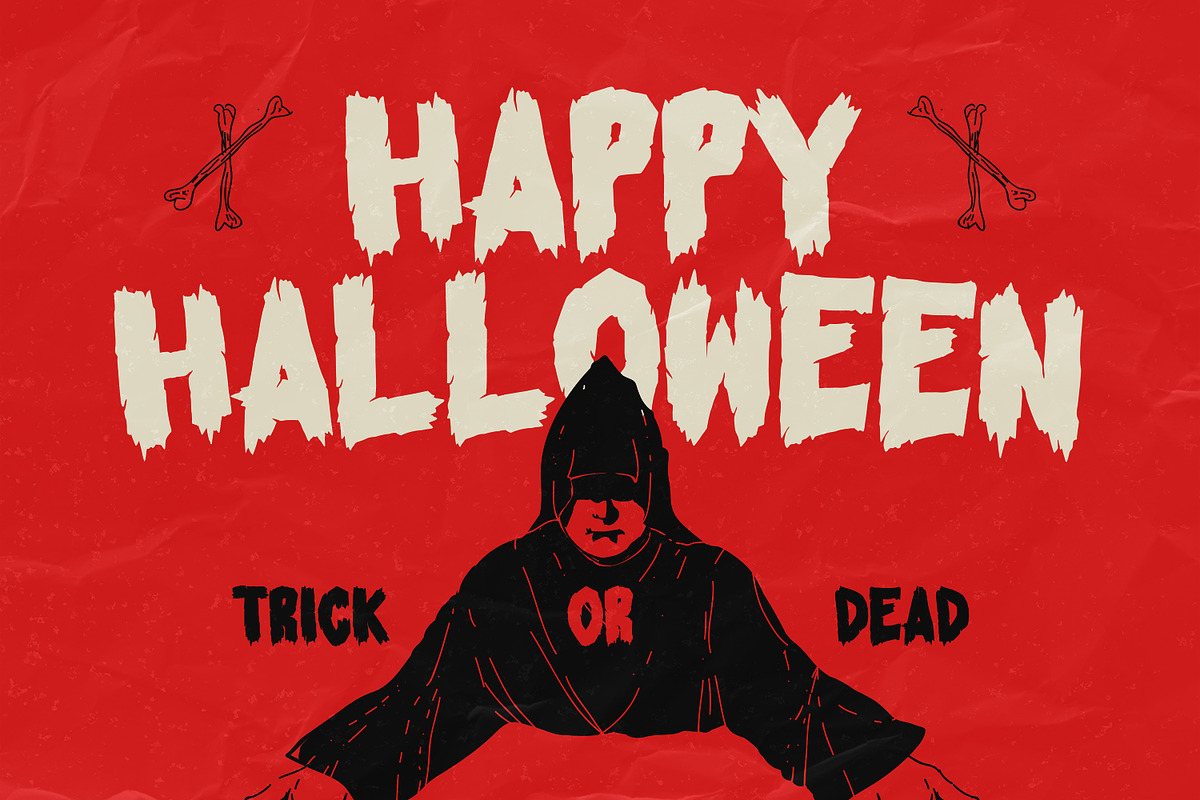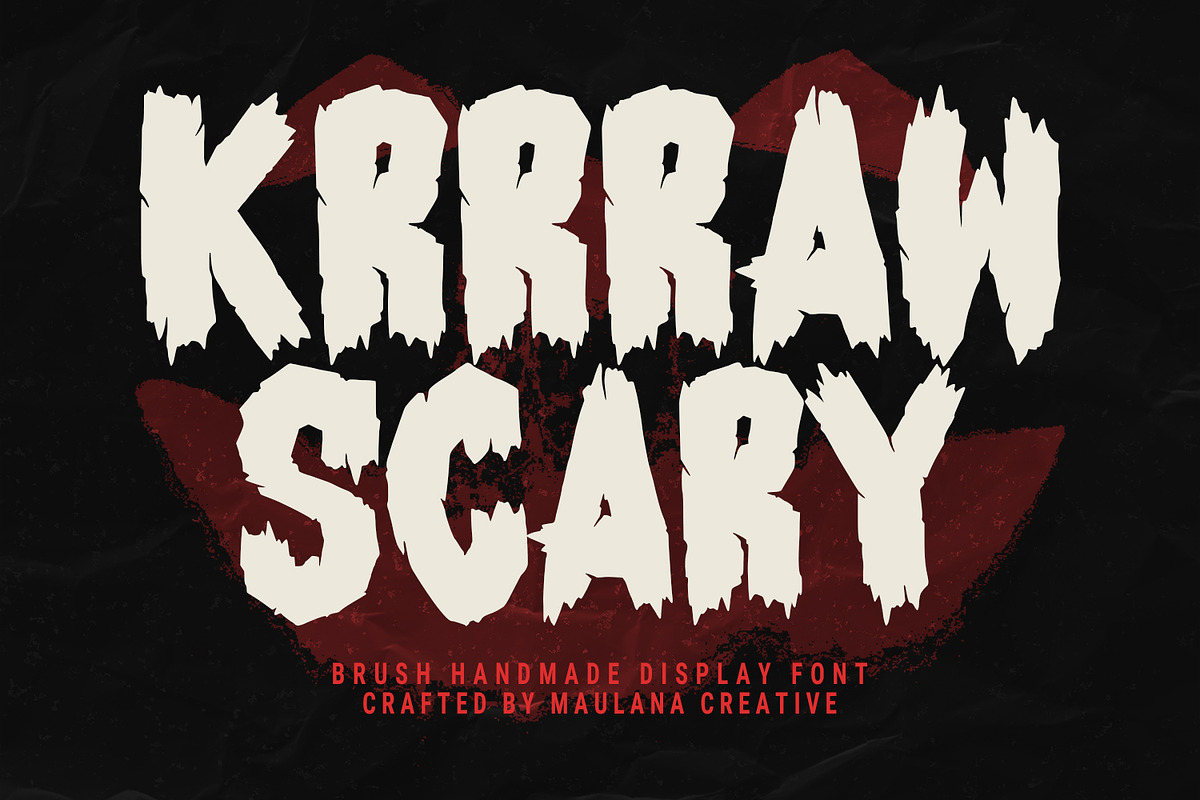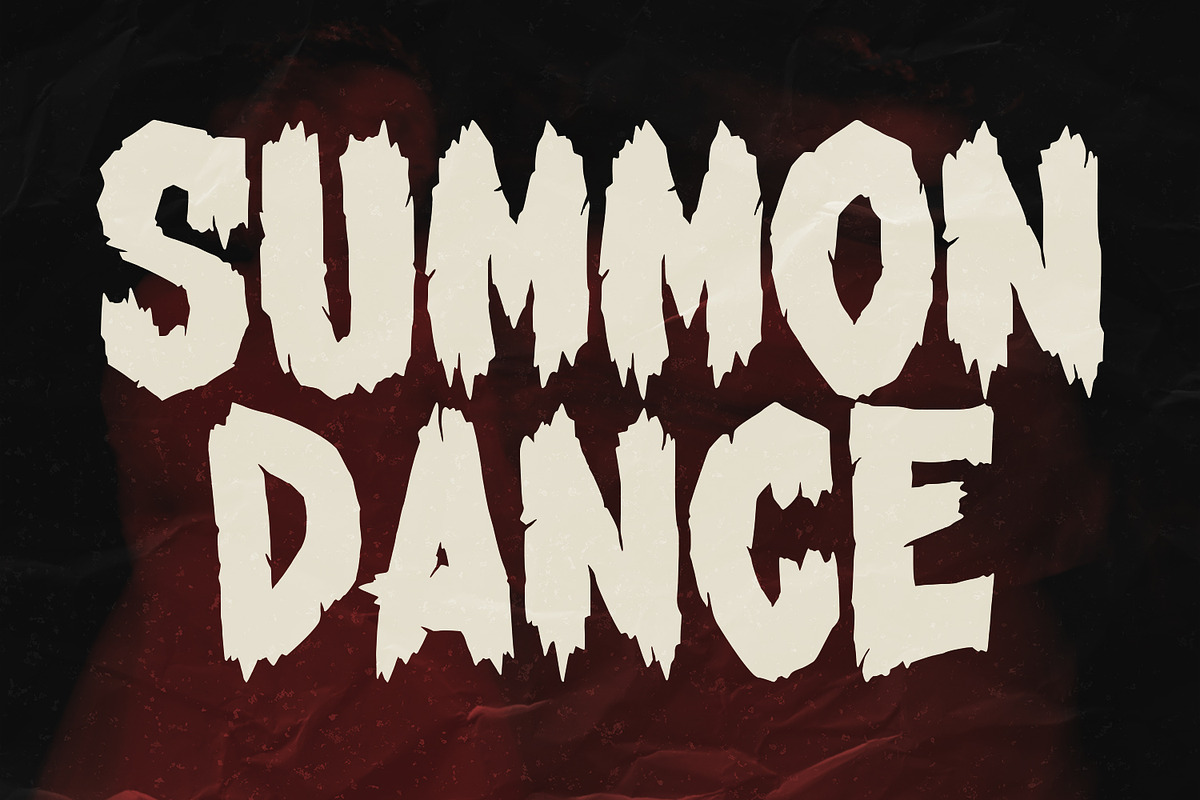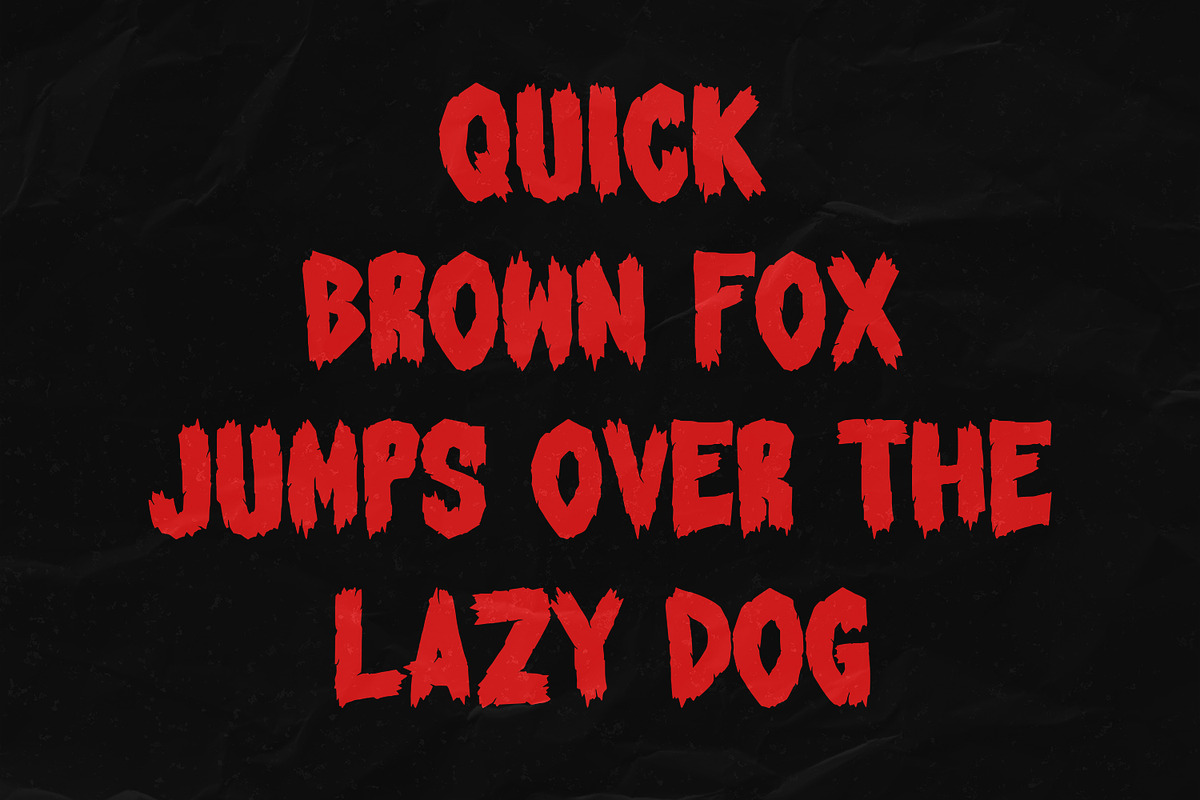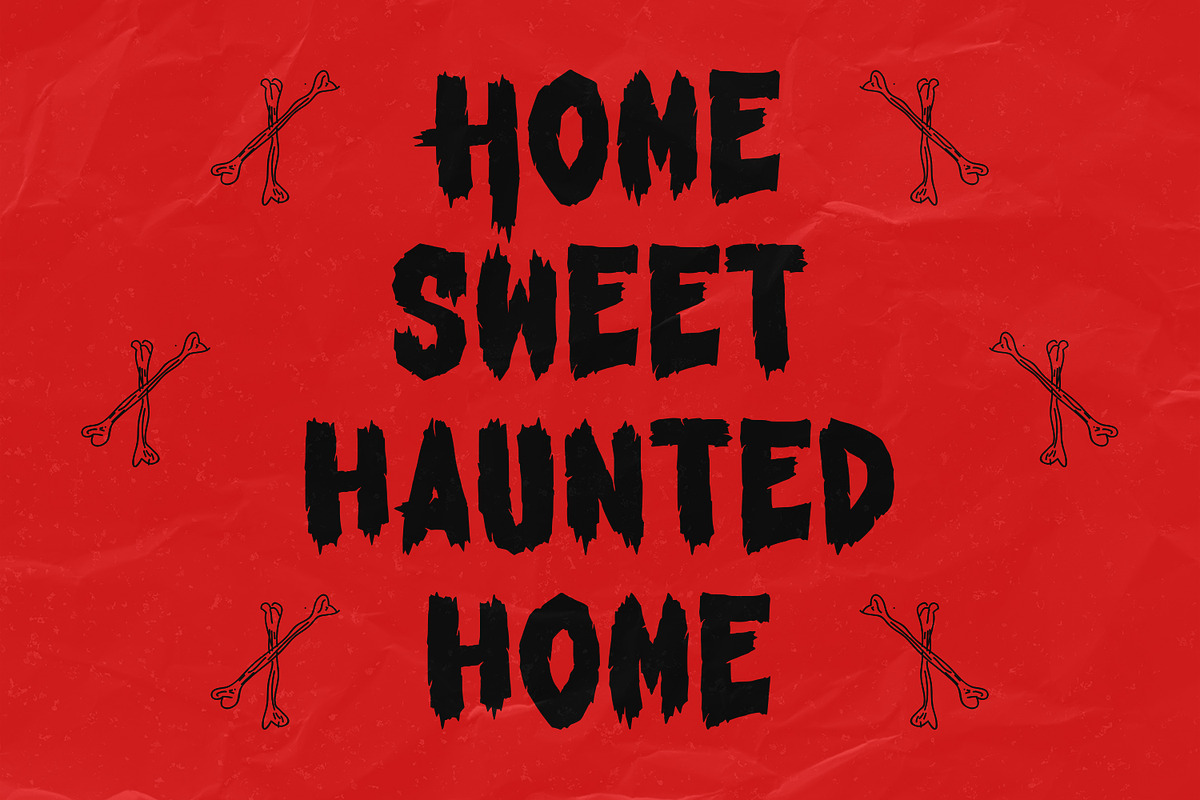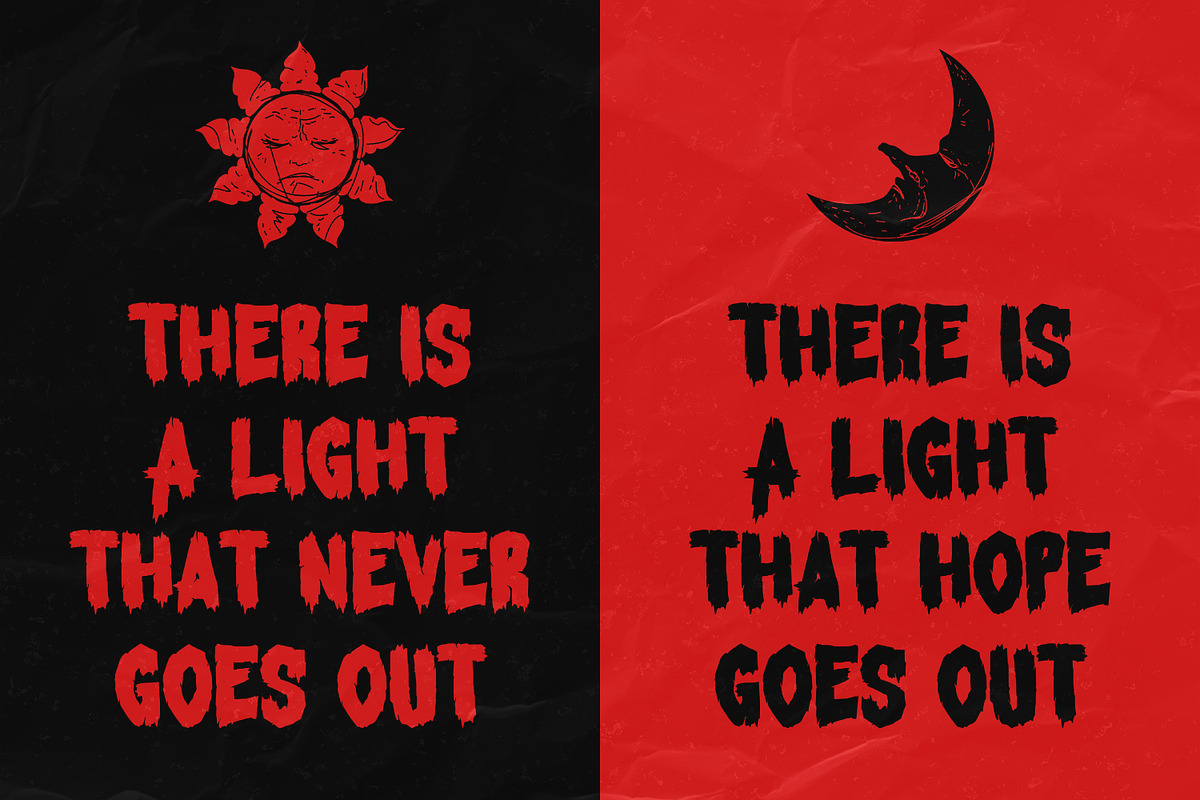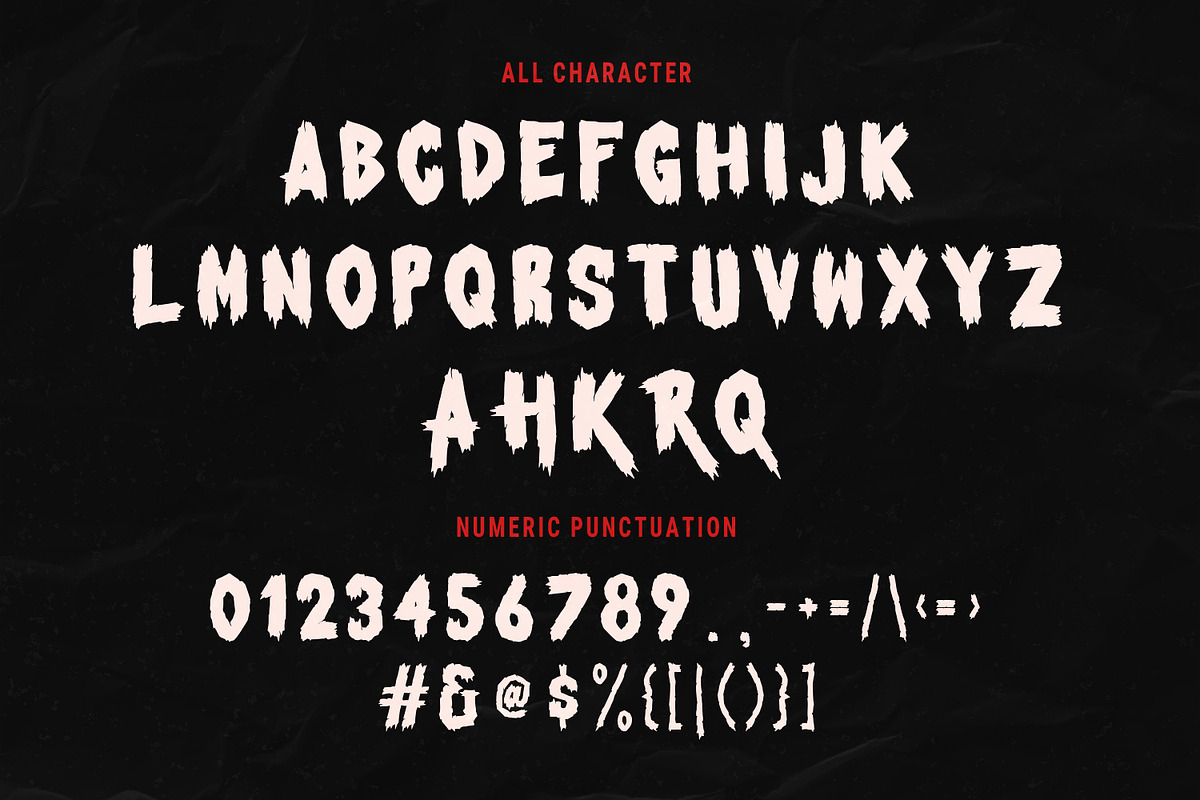
Krrraw Brush Handmade Display Font
Krrraw is a brush horror style display font. To give you an extra creative work with alternate. Krrraw font support multilingual more than 100+ language. This font is good for logo design, Social media, Movie Titles, Books Titles, a short text even a long text letter and good for your secondary text font with sans or serif. Make a stunning work with Krrraw font.